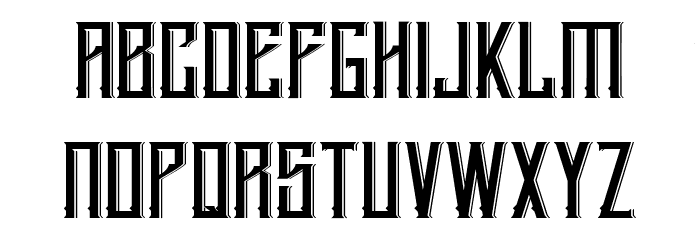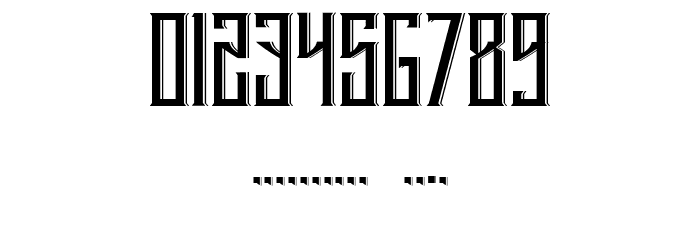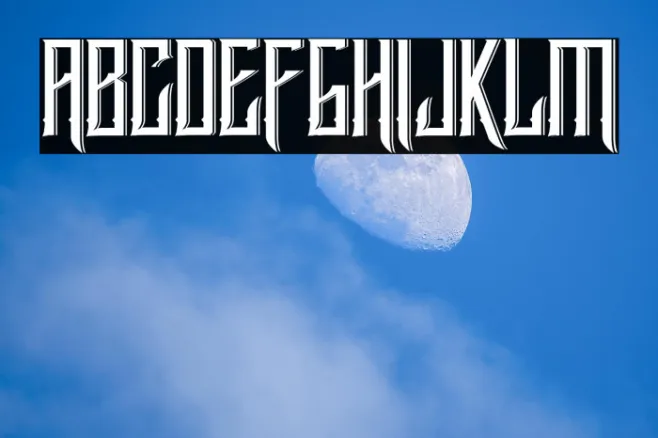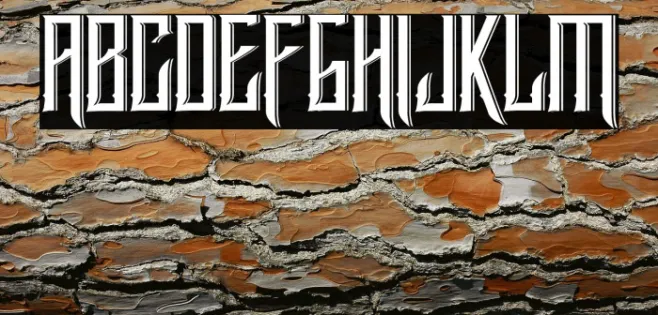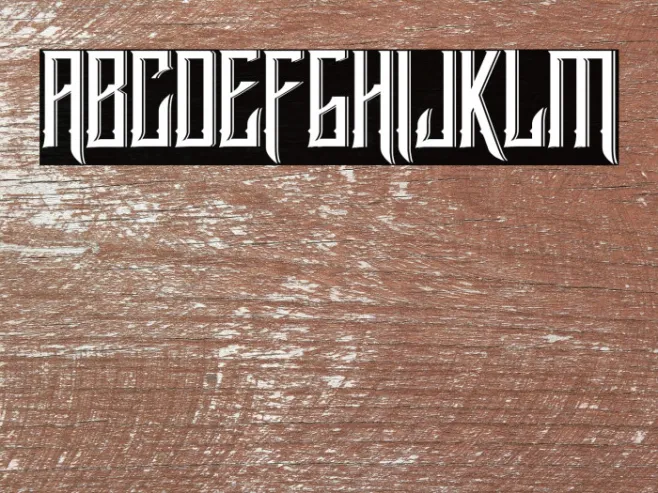
Blnker Font
This font features a bold, angular design with sharp edges and a distinct Gothic influence. The uppercase letters are tall and narrow, with dramatic serifs and pointed tips that give a sense of strength and intensity. The lowercase letters maintain the same angular style, ensuring consistency throughout the typeface. Numbers are similarly styled, with a unique flair that makes them stand out. The special characters are crafted to match the overall aesthetic, adding a cohesive feel to the entire set. This font is perfect for projects that require a bold, impactful look, such as posters, album covers, or branding for edgy or alternative products.
A bold, angular Gothic-inspired font with sharp edges and dramatic serifs.
- Font: Blnker
- Proposed Projects: Ideal for posters, album covers, branding for edgy products, or any project needing a strong visual impact.
- Character Spacing: Tight
- Overall Style: Gothic, Decorative